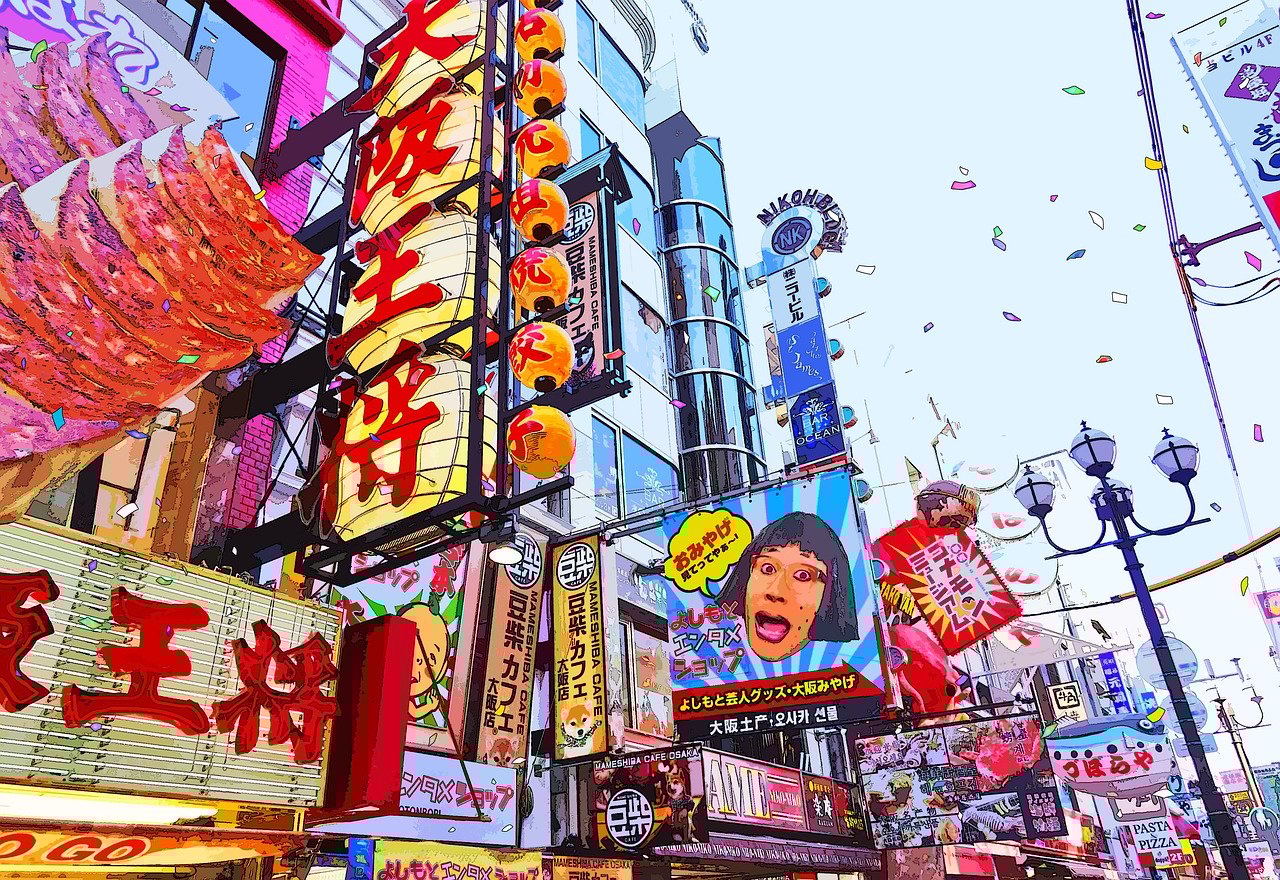
Understanding Display Fonts: Styles, Uses, and Where to Find Them - Graffitype.com
In the world of typography, display fonts play a powerful role in making a strong visual impact. Unlike body fonts that are designed for long paragraphs and high readability, display fonts are crafted to grab attention and communicate a tone or personality right away. They are typically used at larger sizes for headings, posters, packaging, branding, and digital graphics where style and expression matter.
Display fonts come in a wide variety of styles, each evoking a different mood or theme. Some of the most popular types include:
• Serif Display Fonts: Often elegant or classic, with decorative serifs that add sophistication.
• Sans-Serif Display Fonts: Clean and modern, ideal for bold statements and contemporary design.
• Script and Handwritten Fonts: Mimic calligraphy or handwriting, great for invitations, logos, or anything that requires a personal touch.
• Decorative and Novelty Fonts: Unique and playful, perfect for thematic projects like holiday cards or children’s books.
• Blackletter and Gothic Fonts: Traditional, historic, and dramatic—used often in editorial or cultural design contexts.
• Retro and Vintage Fonts: Inspired by specific design eras, from the Art Deco movement to the 70s or 90s aesthetics.
Each of these types can serve different purposes depending on the message you want to convey and the style of your project.
Because of their eye-catching nature, display fonts are best used in:
• Posters and Flyers
• Brand Logos and Packaging
• Social Media Graphics
• Headlines in Magazines or Websites
• Album Covers, Book Covers, and Signage
However, it’s important to use display fonts sparingly and strategically. Their boldness can quickly become overwhelming if overused or paired poorly with other typefaces.